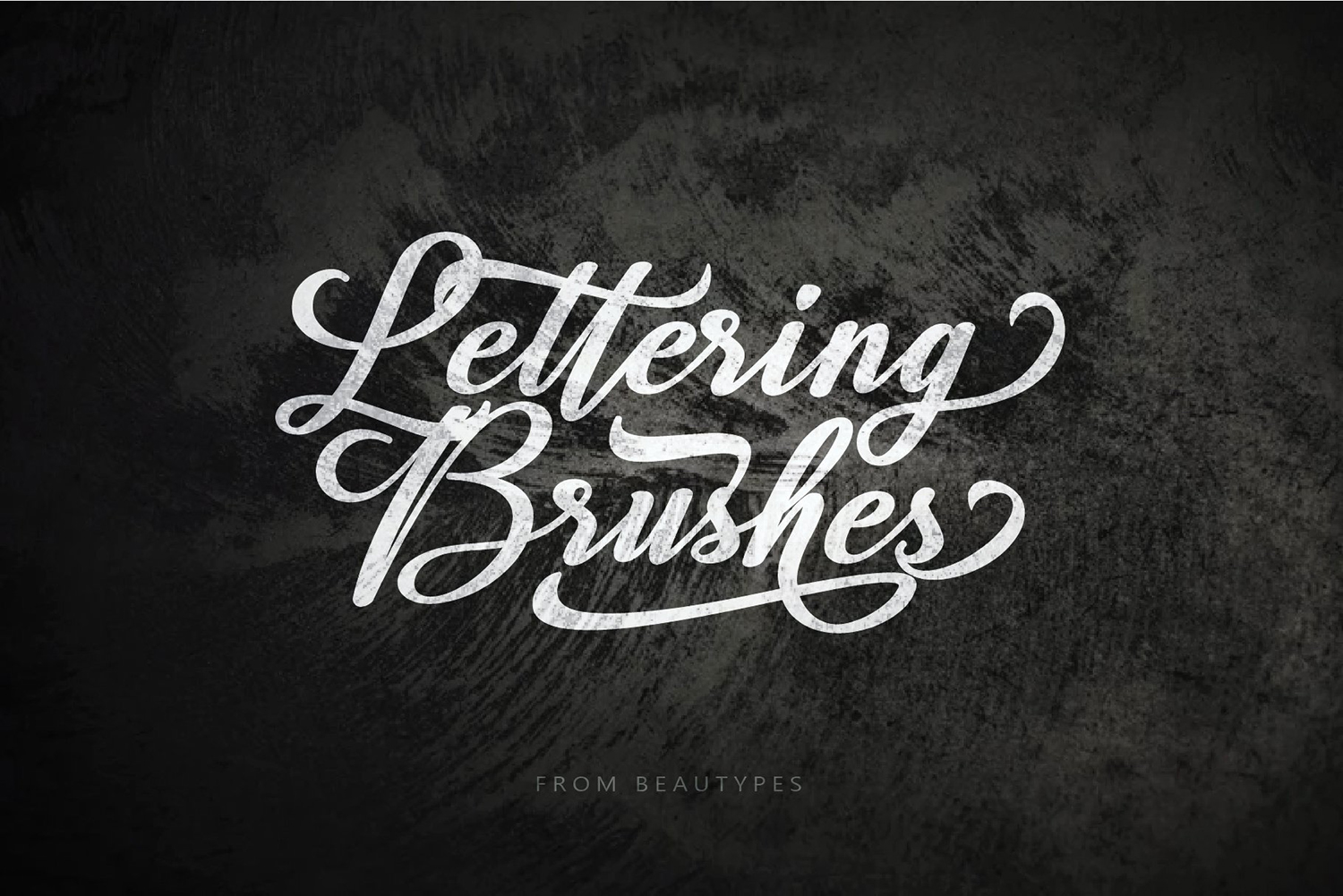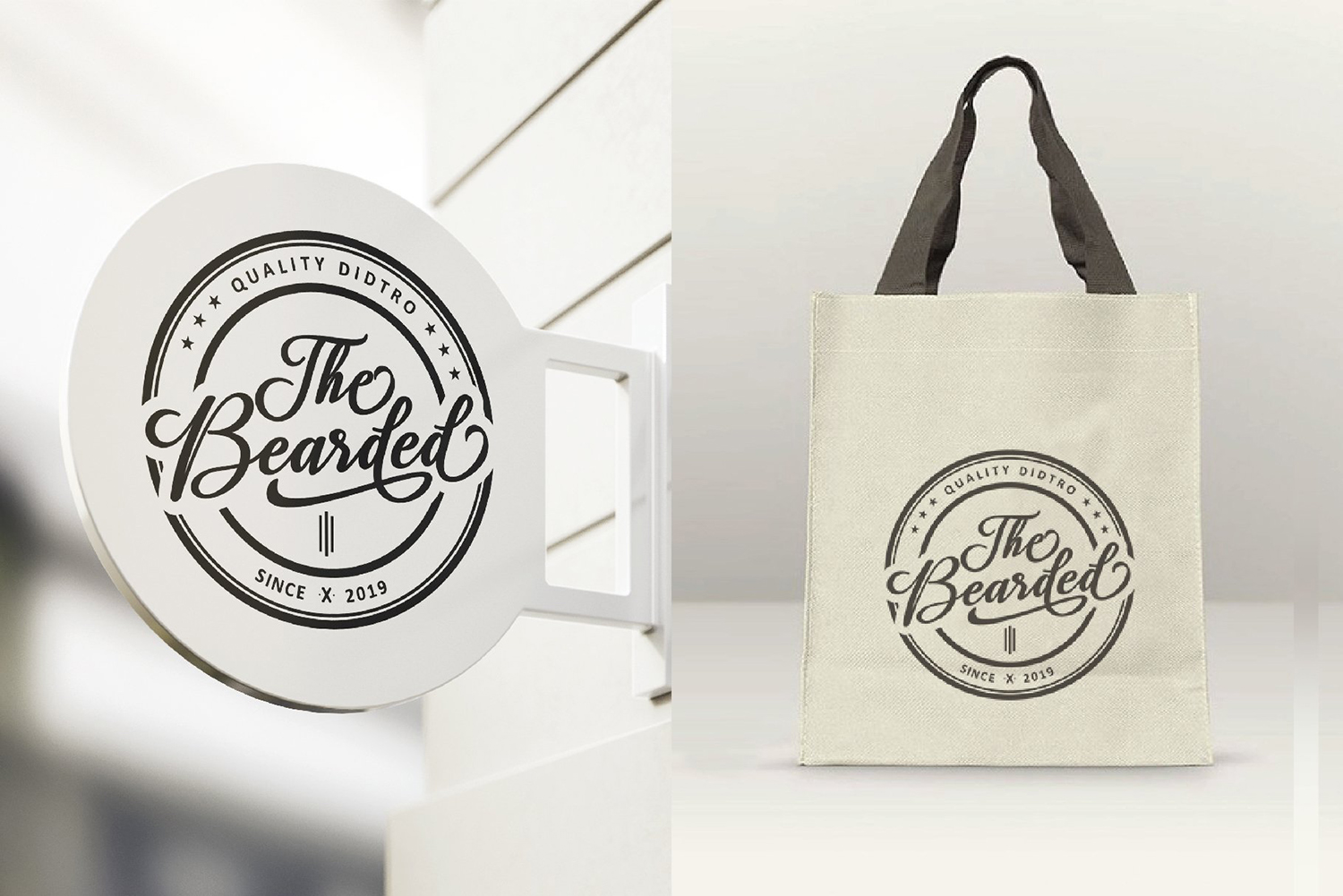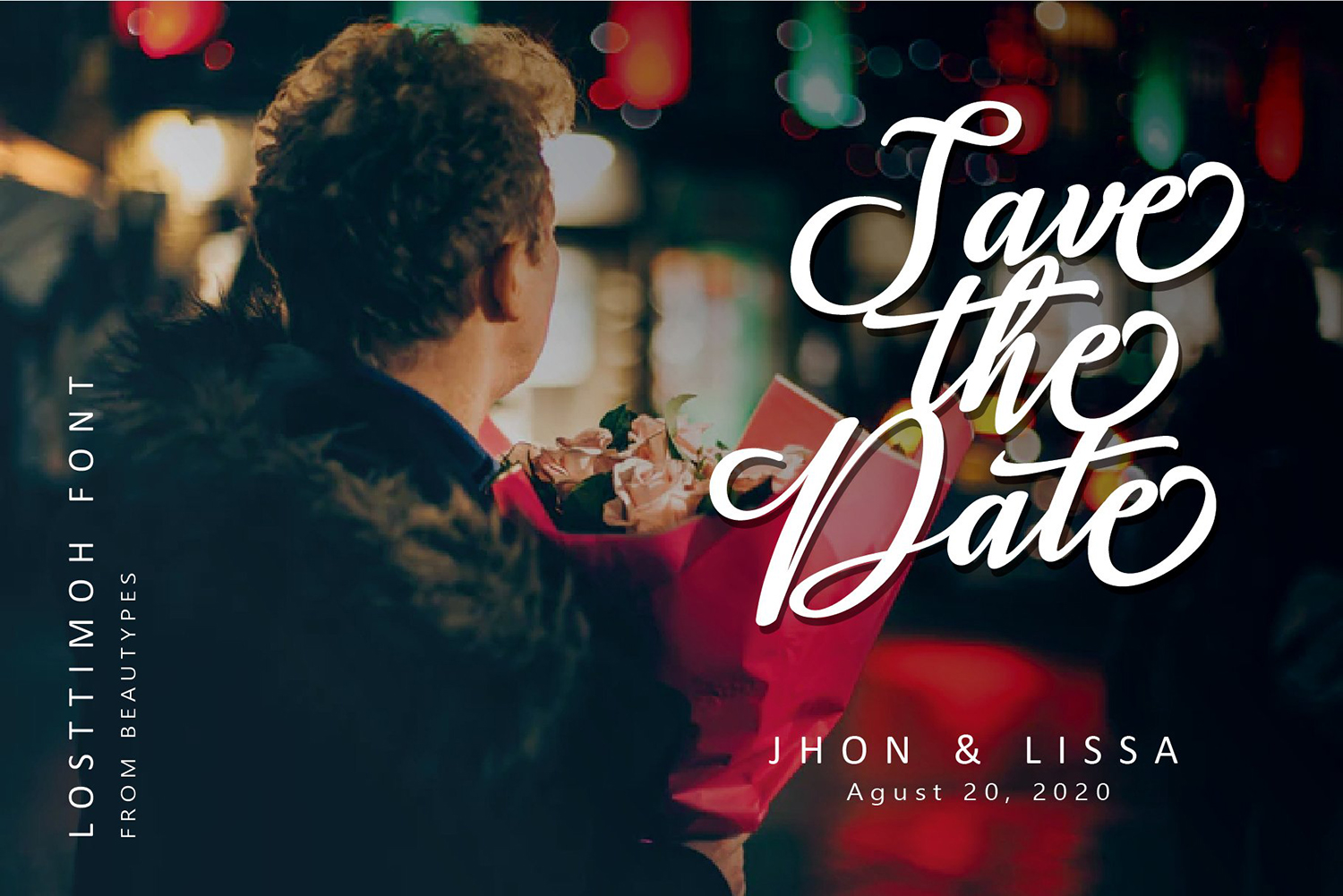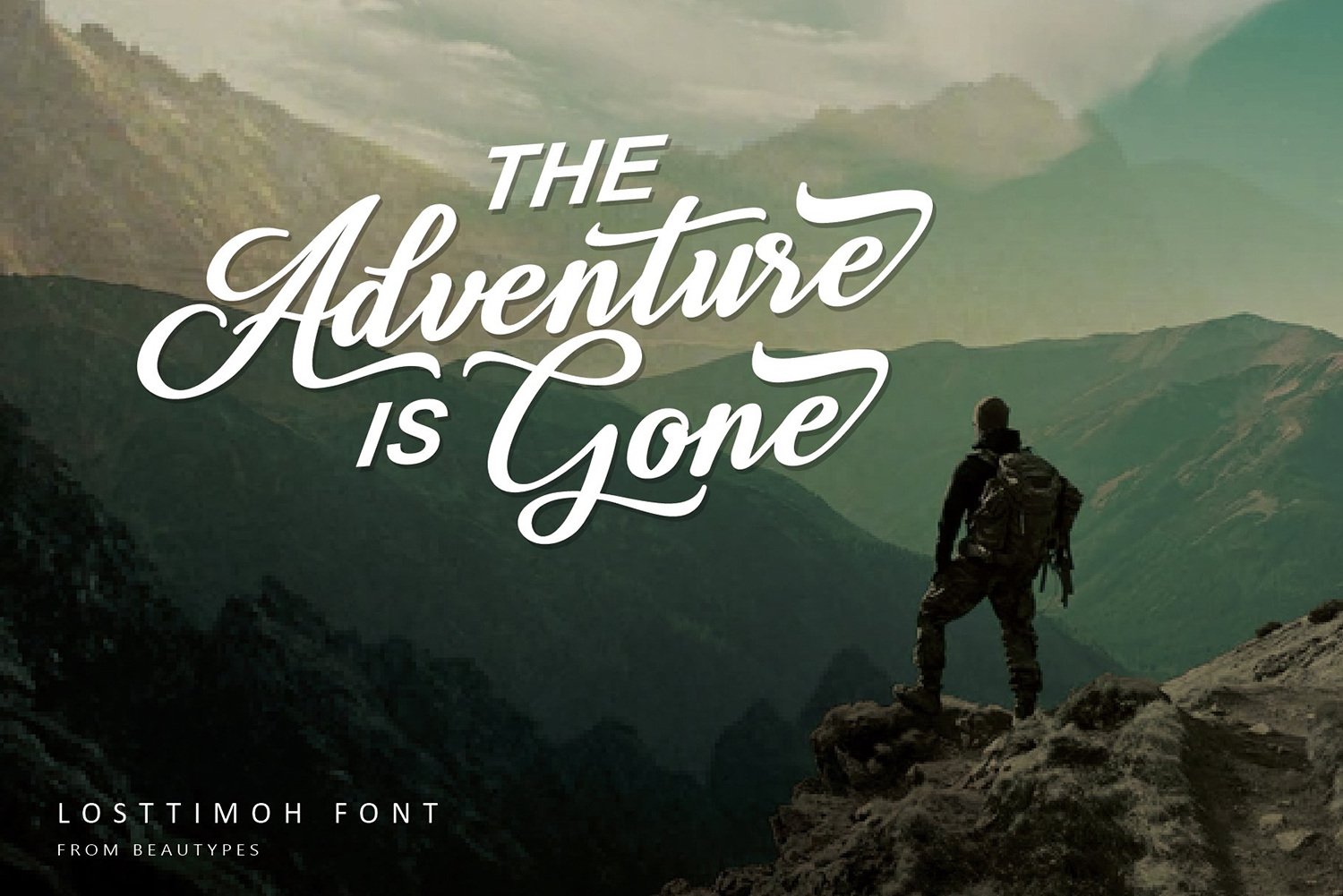
Losttimoh Free Font
Discover Losttimoh Free Font, an intriguing and enigmatic handwritten font that exudes a distinct charm. Let its exceptional style inspire your creativity. This free typeface was designed by a talentedΒ Beautypes Studio. If you like it don’t forget to check out the full version.